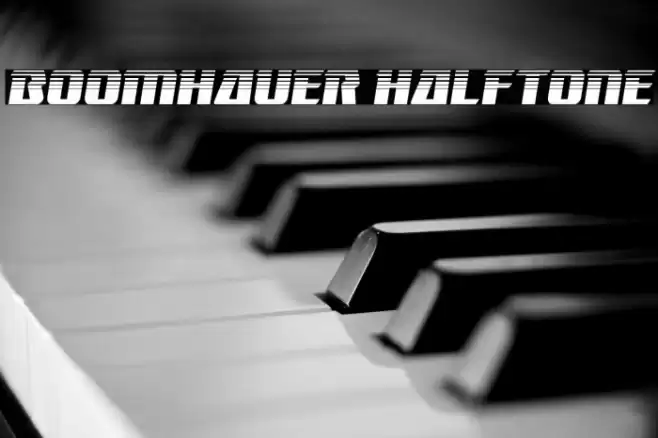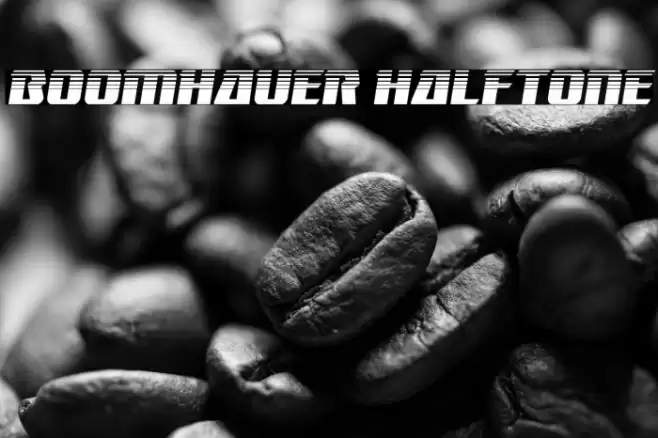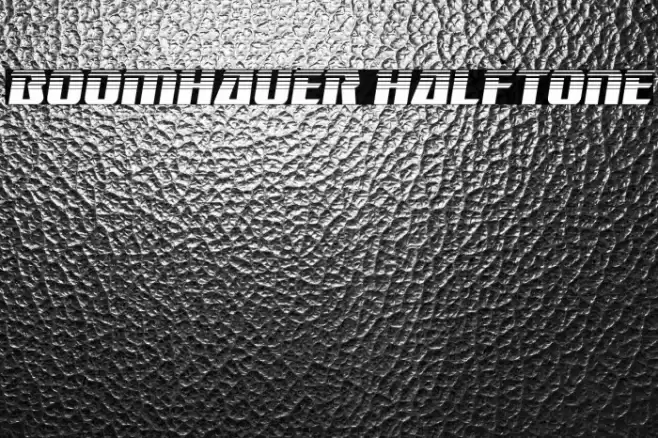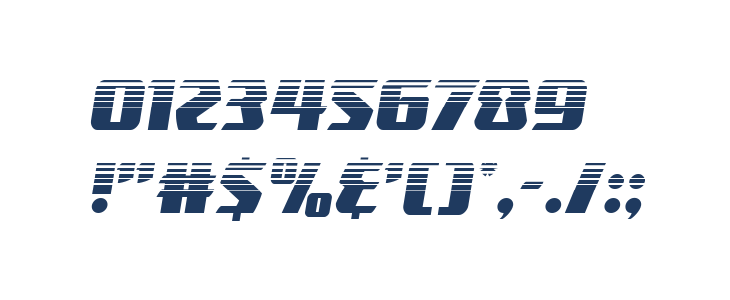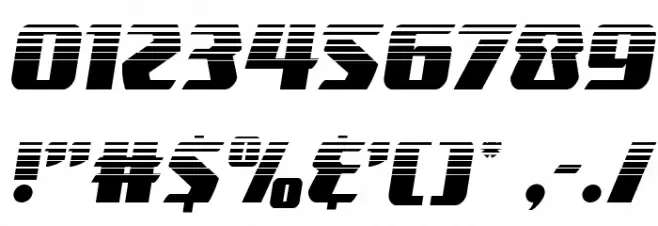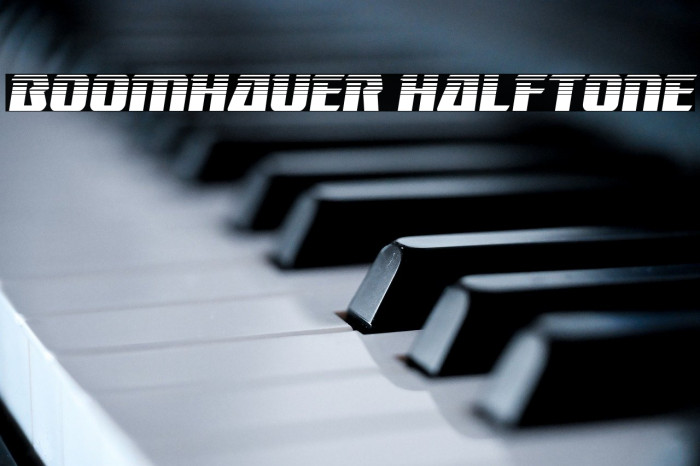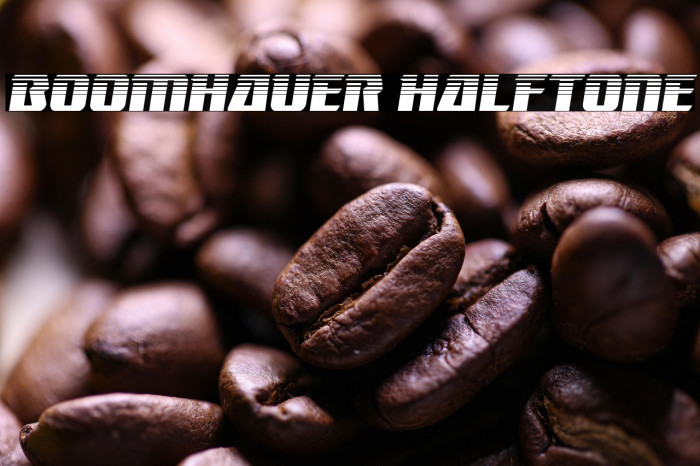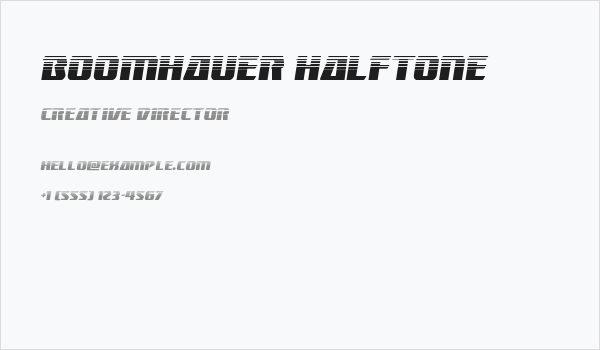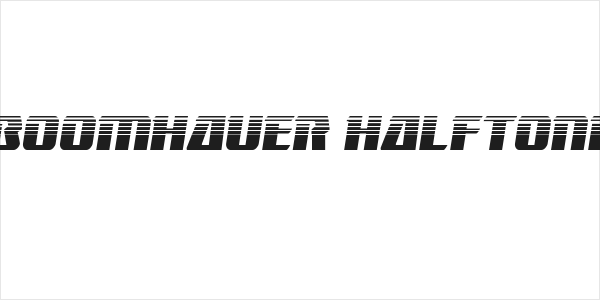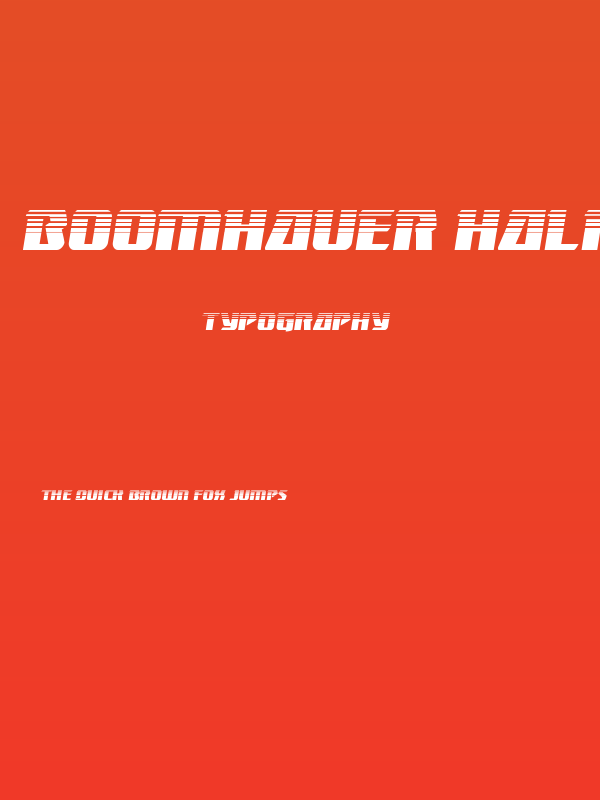
Boomhauer Halftone Font
Boomhauer Halftone Description
This font features a bold, dynamic style with a distinct halftone effect that gives it a modern and edgy appearance. The characters are designed with a strong geometric structure, incorporating horizontal lines that create a sense of movement and energy. The uppercase and lowercase letters maintain a consistent width, enhancing readability while adding a unique visual rhythm. The numerals and special characters are crafted with the same attention to detail, ensuring a cohesive look across all elements. This font's striking design makes it ideal for projects that require a bold statement.
A bold, dynamic font with a halftone effect and geometric structure from Regular fonts.
- Proposed Projects: Ideal for posters, album covers, sports branding, and modern advertising campaigns.